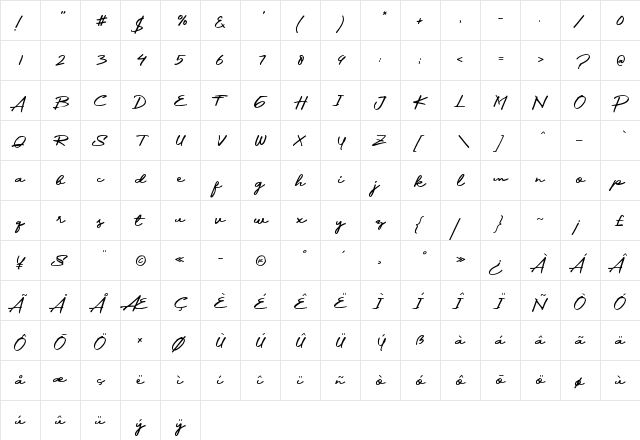
spidol Regular Font Preview
spidol Regular
Design Context for spidol Typeface
spidol is a composed and adaptable typeface that performs quietly and consistently across a wide range of design contexts.